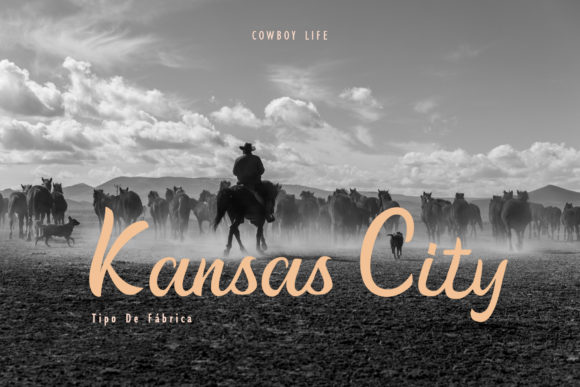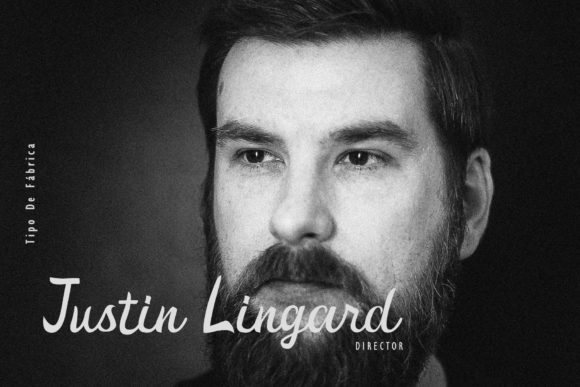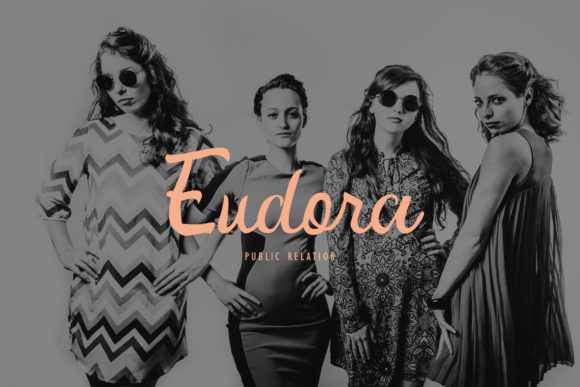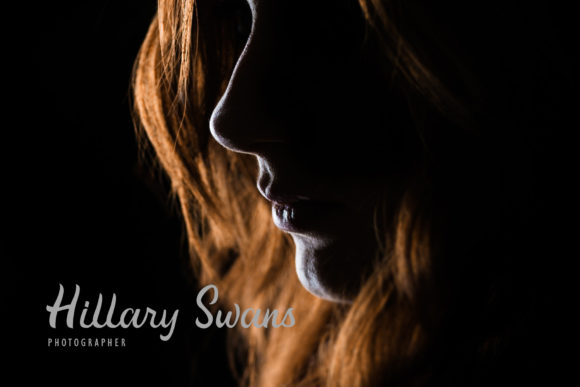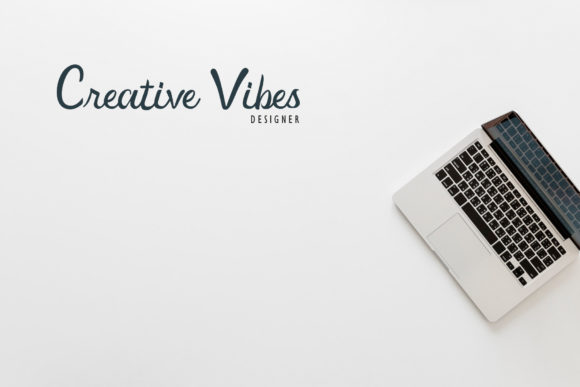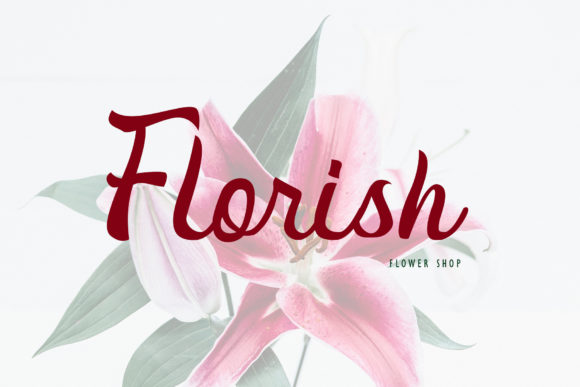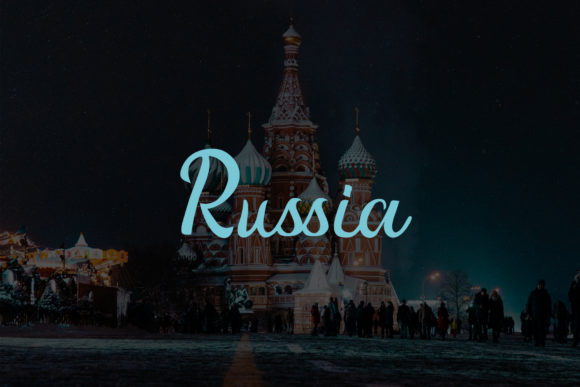
Sunday Night Script Font
About Sunday Night Script Font
The Sunday Night is a cute hand lettering script. It’s perfect for wedding projects, fashion designers, photography services, Instagram stories, natural products, coffee shops, branding, and much more!